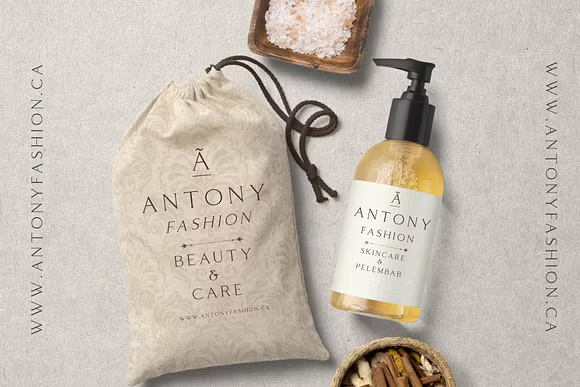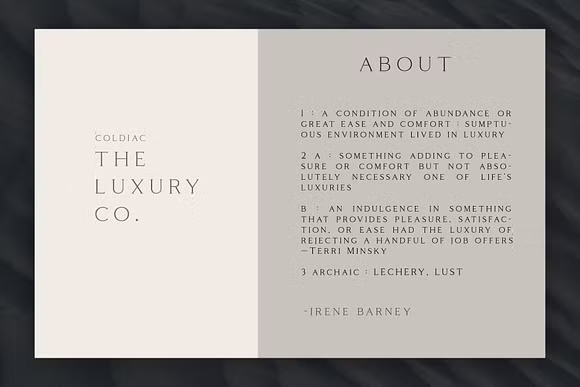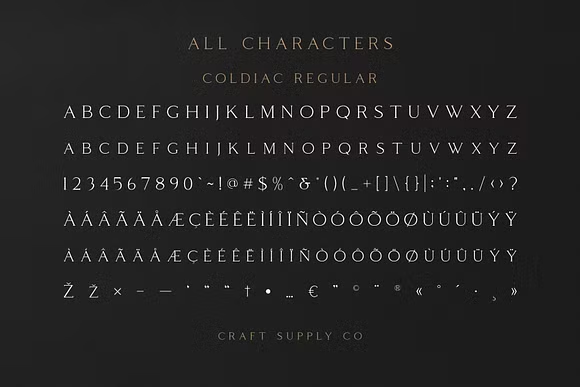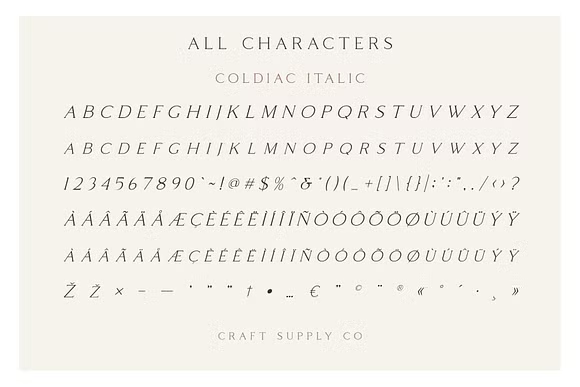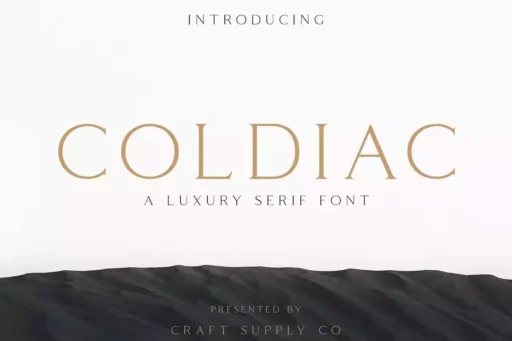
Coldiac Font
Coldiac – Luxury Serif Font is a contemporary serif font with a design that makes us think of transitional serifs. The peculiarities of Coldiac font include the low contrast of shapes, square shapes of circles, and a business-like appearance.
Designed by Craft Supply Co.During the development of this font, we evolved the initial concept and opened up new possibilities for font usage without losing the project’s initial idea. However, even with the many display details, the typeface is legible in small sizes and also holds up well in large text blocks.
It is a harmonious blend of Euclidian shapes and visual symmetry. Due to the wide range of styles, Coldiac font is perfect for logos, greeting cards, quotes, posters, branding, name cards, stationary, design titles, blog headers, art quotes, and typography. It is also suitable for art, modern envelope lettering, or book design, for any happenings style like hand-drawn or watercolor design, crafting, DIY projects, book titles, wedding invitations, pop vintage theme, and for any ways that you want to make your art or design work look beautiful and trendy.
Where Coldiac Font works best
Coldiac Font gives long-form text a classic, trustworthy rhythm — ideal for magazine spreads, annual reports and book interiors.
Pair Coldiac Font with generous letter-spacing for wordmarks in fashion, hospitality, wine and jewellery branding.
Use Coldiac Font for slide titles in Keynote, PowerPoint or Google Slides to add authority without looking dated.